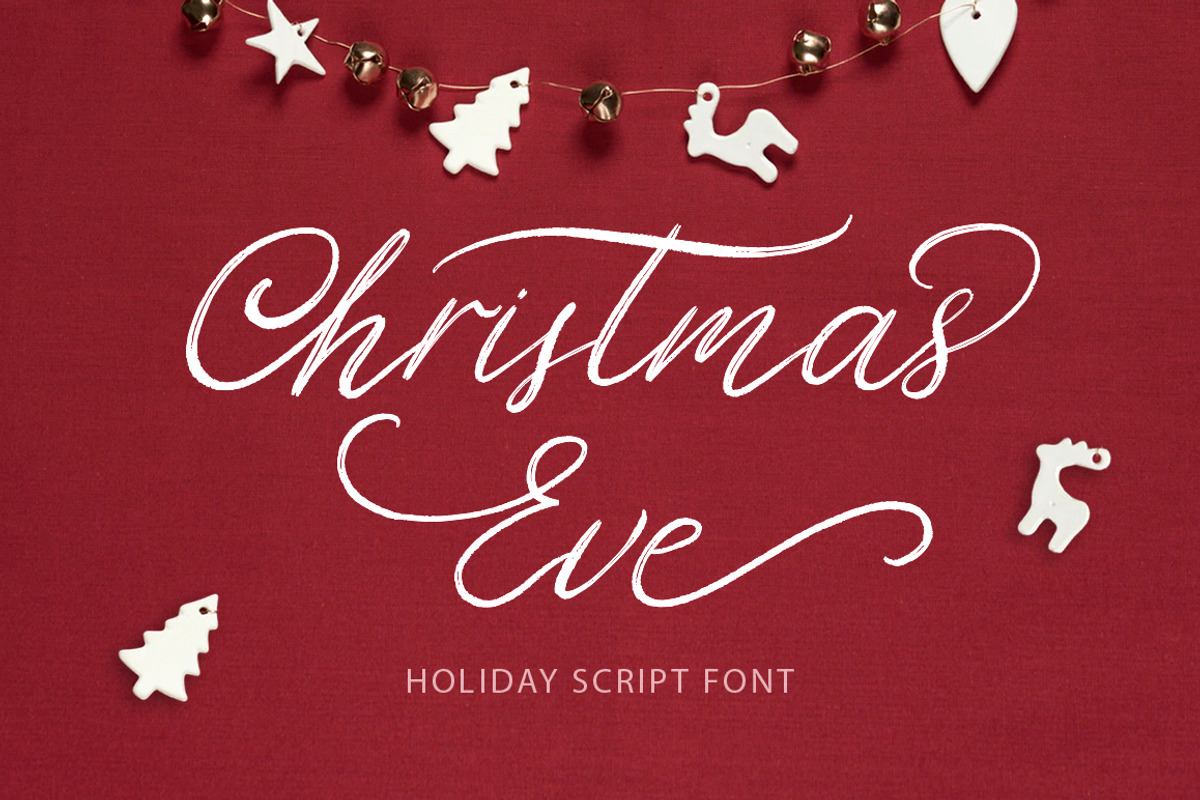
Christmas Eve. Holiday Script font. Free Download
Christmas Eve – Holiday Script Font Free Download is a festive and elegant handwritten typeface perfect for holiday-themed designs, Christmas cards, invitations, and seasonal branding. Its graceful loops and whimsical flair bring warmth and cheer to any project. Please note that you must purchase this font for commercial use, but it is available as a free download for testing purposes. Add a touch of holiday magic to your creative work with Christmas Eve – Holiday Script Font Free Download, and make your seasonal designs feel as joyful as the occasion.